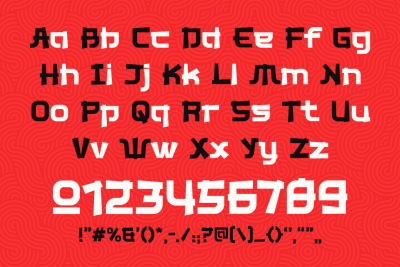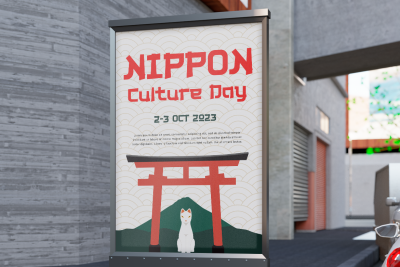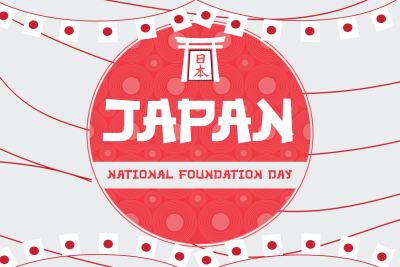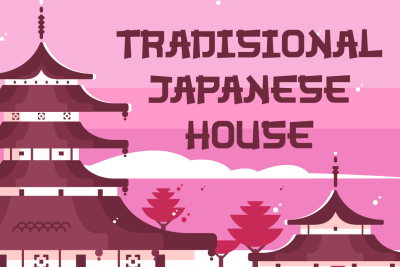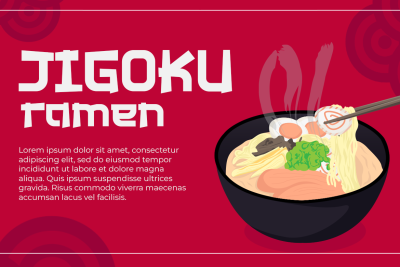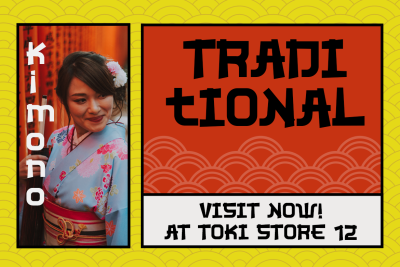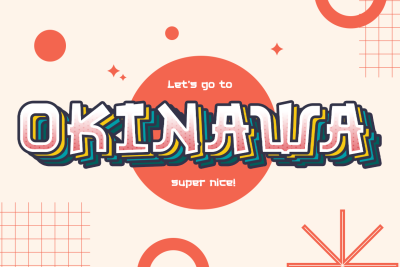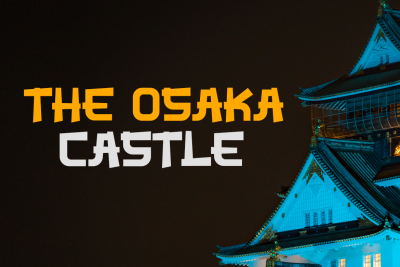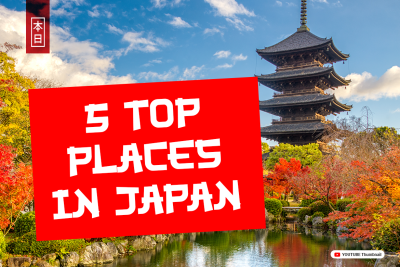
Japanese Font WATANABE is a bold and striking typeface inspired by traditional Japanese calligraphy and contemporary design. With its sharp angles and structured letterforms, WATANABE seamlessly blends cultural heritage with a modern aesthetic. This font evokes strength, precision, and balance, making it an excellent choice for projects that require a distinctive Japanese influence. Whether for branding, editorial design, or digital media, WATANABE enhances any composition with its unique character and powerful presence.
The structured yet fluid nature of WATANABE makes it both visually engaging and highly readable. Each letter carries an artistic edge, reminiscent of brush strokes used in traditional Japanese calligraphy. At the same time, its geometric forms give it a contemporary appeal, making it suitable for a wide range of design applications. If you are seeking a typeface that fuses tradition with innovation, WATANABE is the perfect choice.
Japanese Font WATANABE Suitable For:
1. Branding & Logo Design
Japanese Font WATANABE is ideal for brands looking to establish a bold and sophisticated identity. From Japanese restaurants to martial arts studios and premium product lines, this font conveys authenticity and tradition with a modern twist.
2. Editorial & Print Design
For books, magazines, and posters, WATANABE adds a unique cultural and artistic dimension. Its sharp, clean lines ensure excellent readability while providing an eye-catching visual experience.
3. Product Packaging & Labels
If you want to enhance product presentation, WATANABE is an excellent choice for packaging and labels. It is especially well-suited for food packaging, luxury items, and handcrafted goods that wish to showcase a refined yet cultural look.
4. Digital Content & Websites
Web designers and digital creators can use WATANABE for headlines, banners, and UI elements. Its bold presence helps create a memorable online experience while maintaining a sleek, professional appearance.
5. Event Promotion & Signage
WATANABE is perfect for promotional materials, event posters, and signage related to cultural festivals, exhibitions, and corporate events. Its strong and impactful look ensures information is clear and visually appealing.
Japanese Font WATANABE is an exceptional choice for designers who seek a typeface that embodies both heritage and modernity. Whether for print or digital applications, this fontโs bold and structured design ensures your message is conveyed with elegance, power, and authenticity.